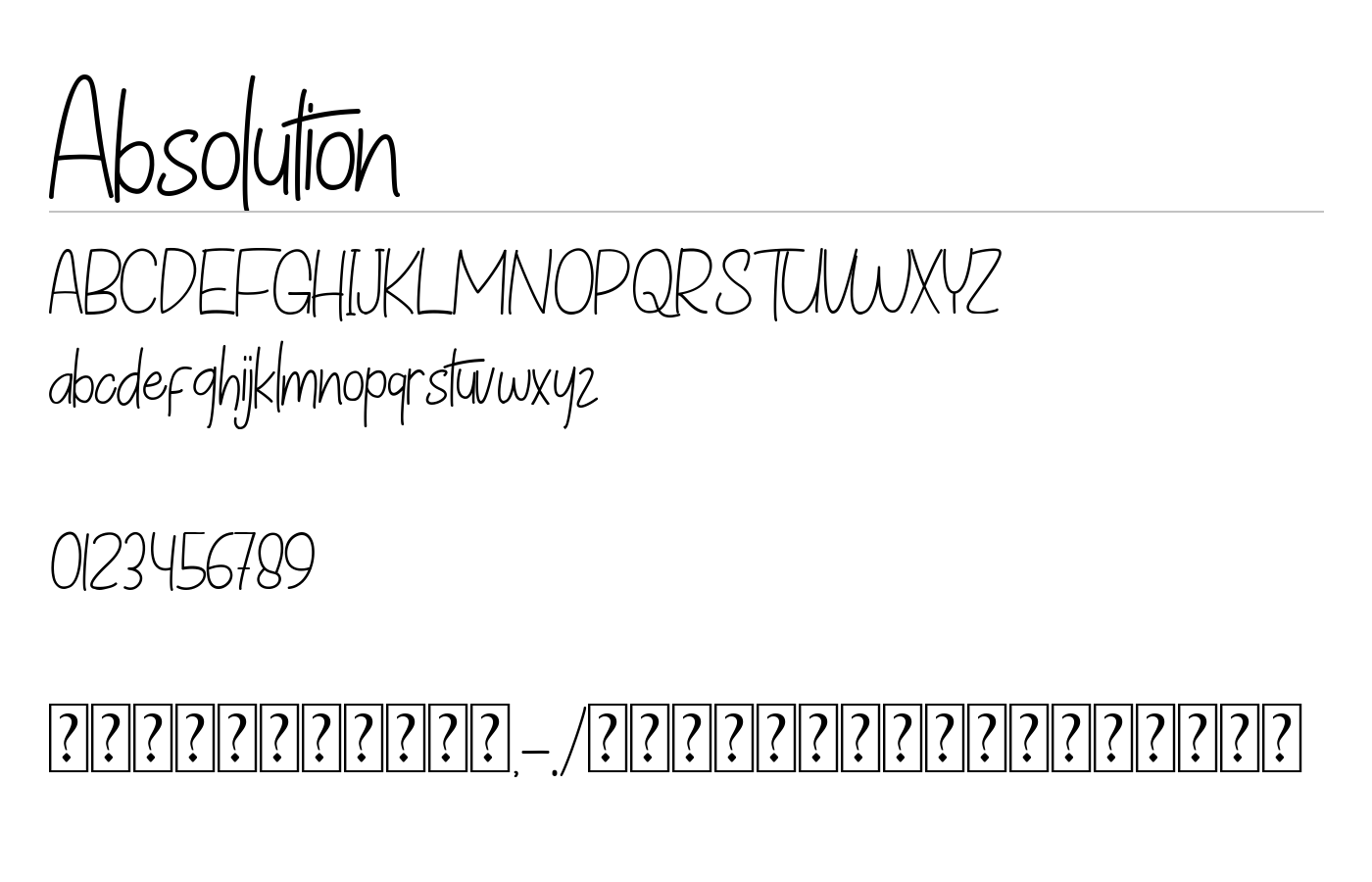
Absolution is a tall, narrow handwritten sans serif font with a casual, friendly feel. Its thin strokes and irregular letterforms create a playful and approachable style, perfect for creative projects, informal branding, and artistic headlines where a unique, personal touch is desired. This font works well in contexts that seek to convey warmth and individuality without sacrificing legibility.
Absolution Font
About Absolution Font